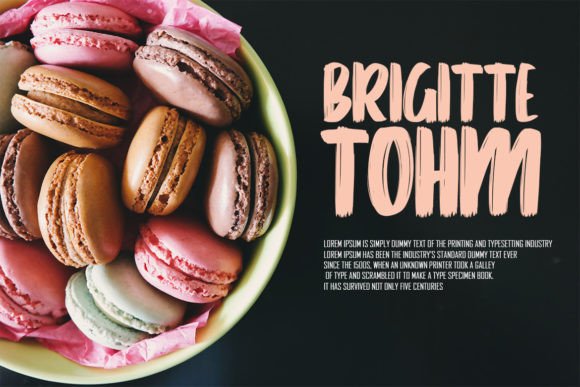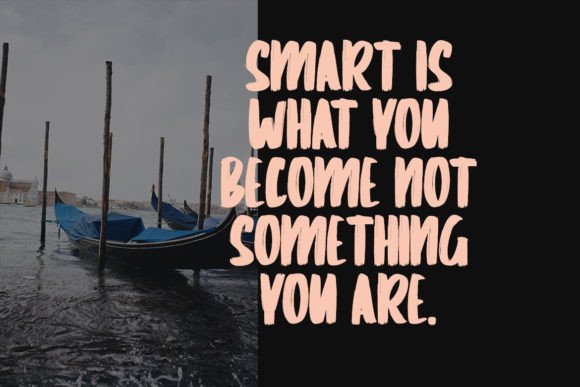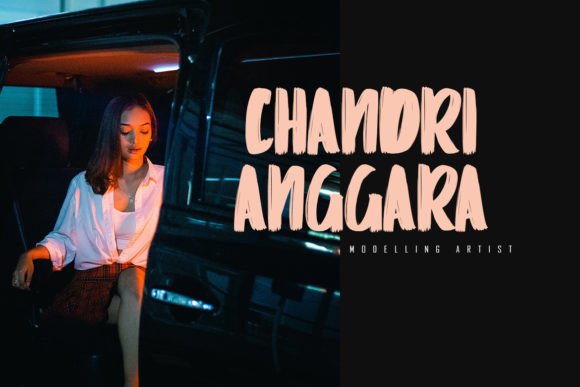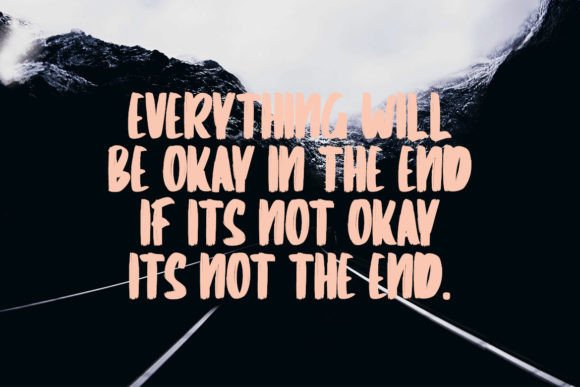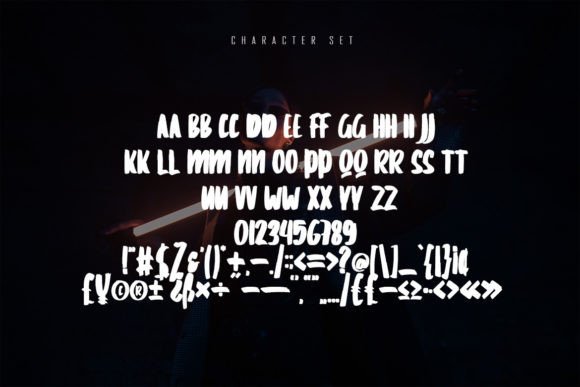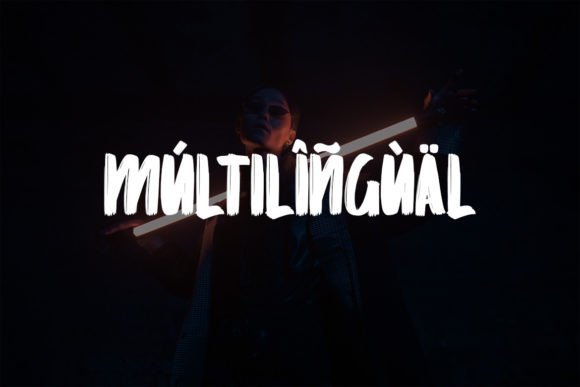
Introduction to Raqgar Font
You know that moment when you’re brainstorming a creative project and you need a design resource that adds a personal touch? For many designers, that moment is when they’re searching for the perfect font to capture the essence of their vision. If you’re one of them, you might be excited to hear about the Raqgar Font.
This rough handwritten brush font is a game-changer for designers who want to add a touch of realism to their work. Written in quick motion using a brush pen, it has a dry, realistic look that’s perfect for magazines, logos, product packaging, headlines, posters, merchandise, social media, or greeting cards. With its high-quality design and transparent background, the Raqgar Font is a valuable addition to any designer’s toolkit.
Key Features of Raqgar Font
- Unique, creative design ideal for various projects and designs, making it a valuable design resource.
- Transparent background, enabling users to easily place the font over any image or background.
- High-quality design, with a clear and readable font style, making it suitable for various creative projects.
- Perfect for designers and artists looking for a unique and creative font to elevate their designs.
Honest Review: Raqgar Font
I recently stumbled upon the Raqgar Font while searching for a design resource to elevate my creative project. As a designer, I’m always on the lookout for high-quality fonts that can add a touch of sophistication to my work. Raqgar Font did not disappoint.
- ✨ Unique and modern design that stands out from the crowd
- ✨ High-quality glyphs and a transparent background make it perfect for creative projects
- ⚠️ Limited language support, which may be a concern for designers working on international projects
- ⚠️ Some users may find the font a bit too bold or overwhelming for certain design applications
Overall, I’m impressed with the Raqgar Font and would definitely recommend it for designers looking for a high-quality, modern font. With a little creativity and experimentation, I’m sure you can find ways to make it work for your next creative project.
Tips for Getting the Most Out of Raqgar Font
For the best results, use Raqgar Font with a high-quality image or background. You can also experiment with different font sizes, colors, and styles to add depth and visual interest to your design.
Raqgar Font is perfect for creating eye-catching titles, headings, and logos for your creative project. It’s also great for designing social media graphics, flyers, and brochures. With its unique style and high-quality design, Raqgar Font is a valuable design resource for any project.